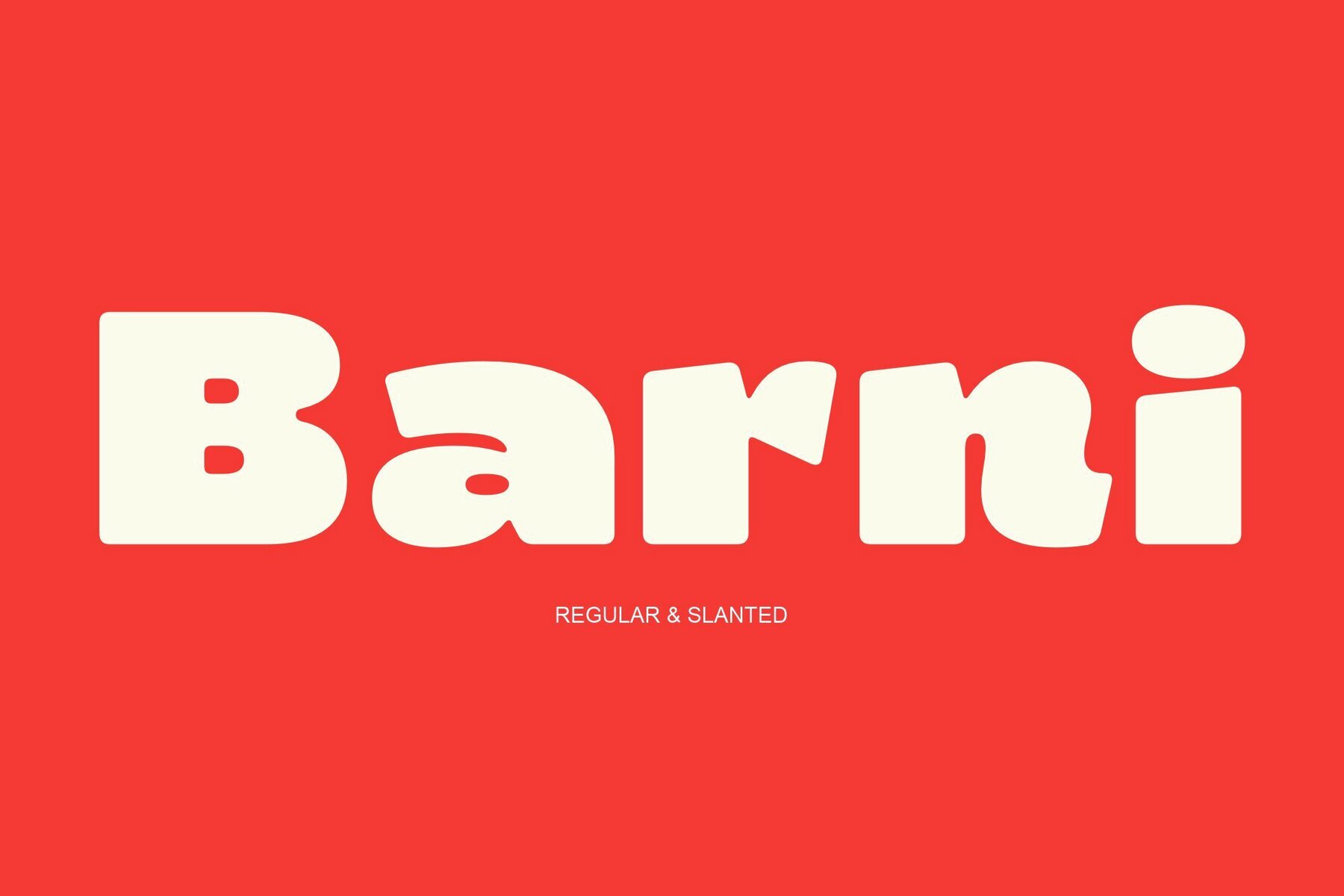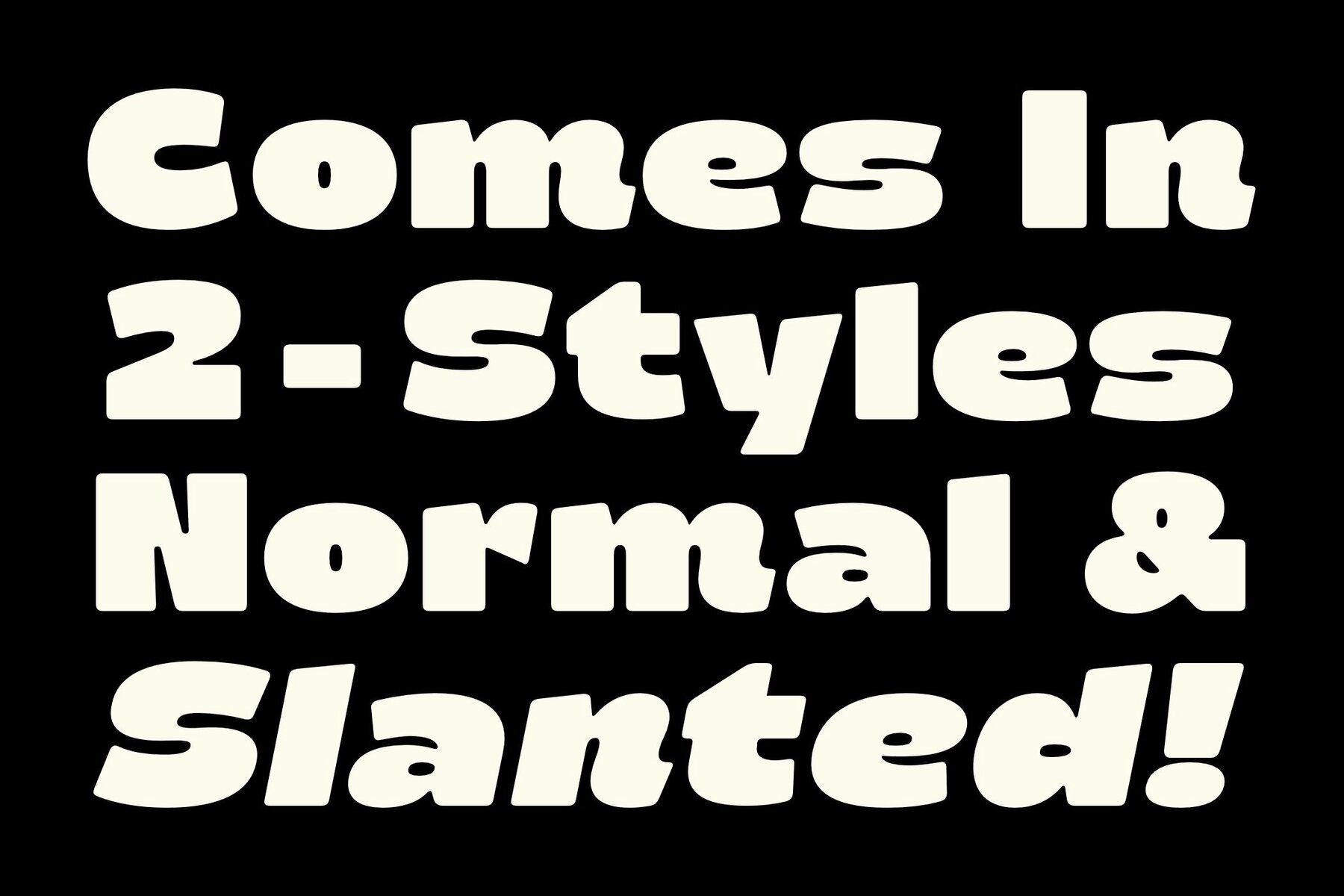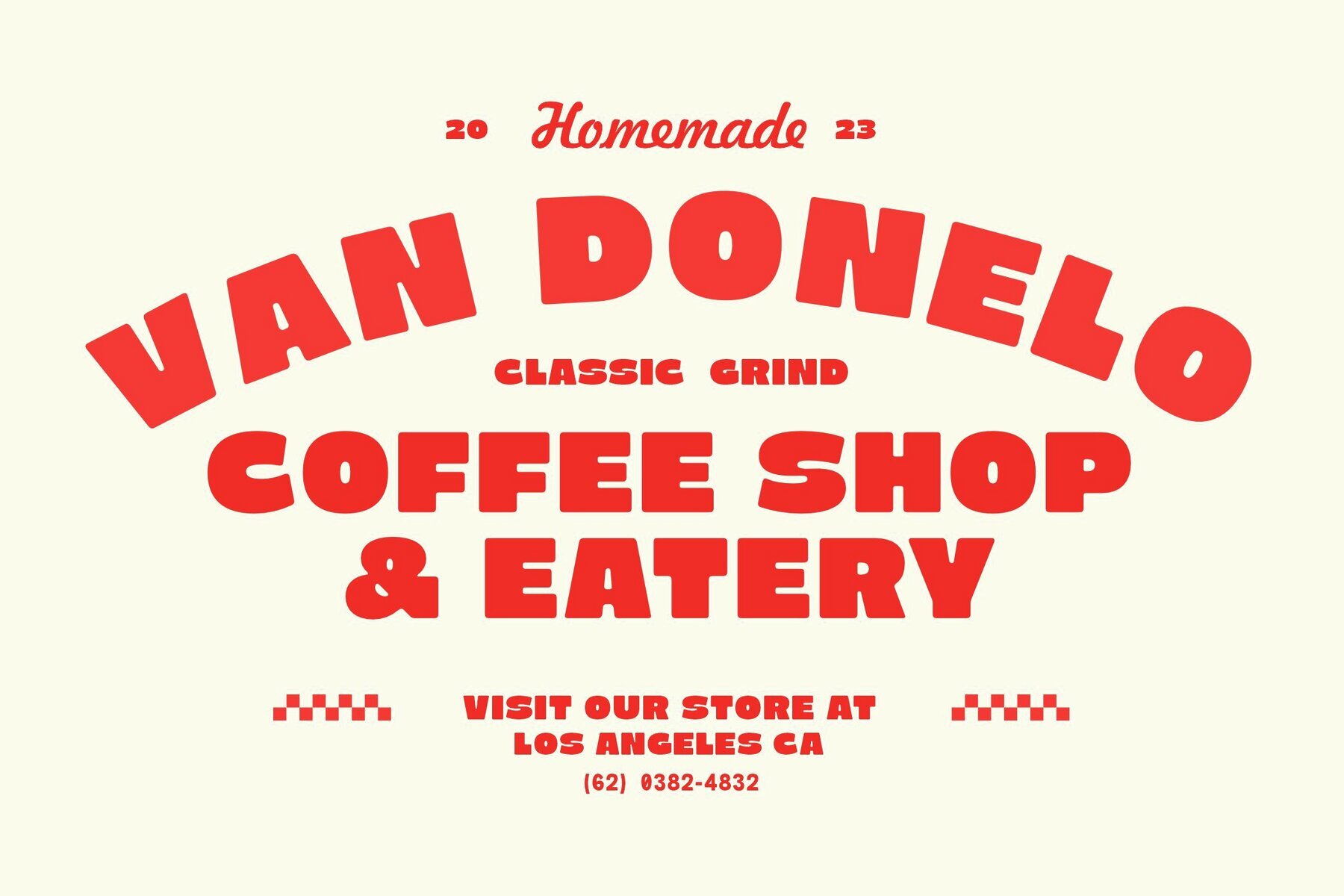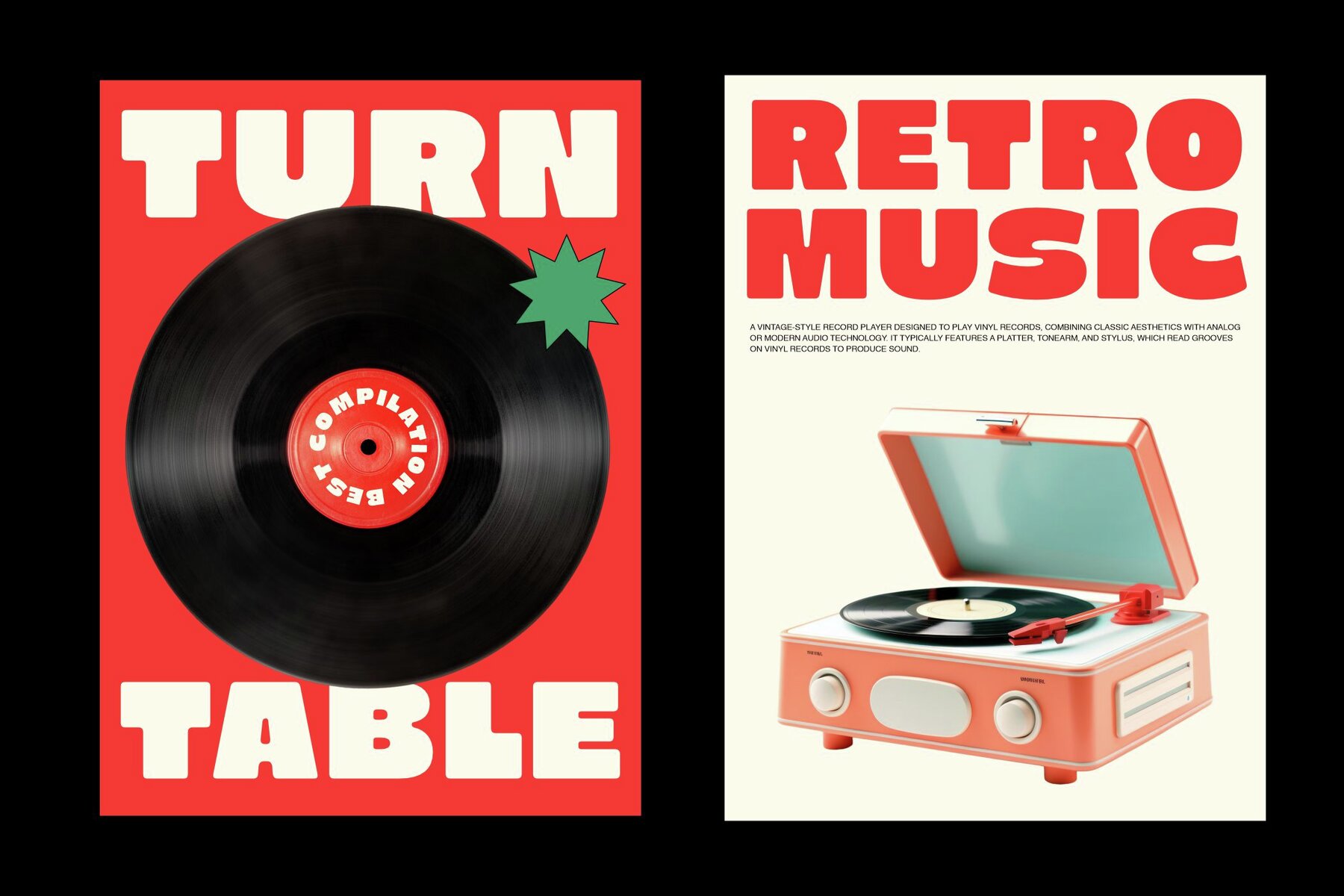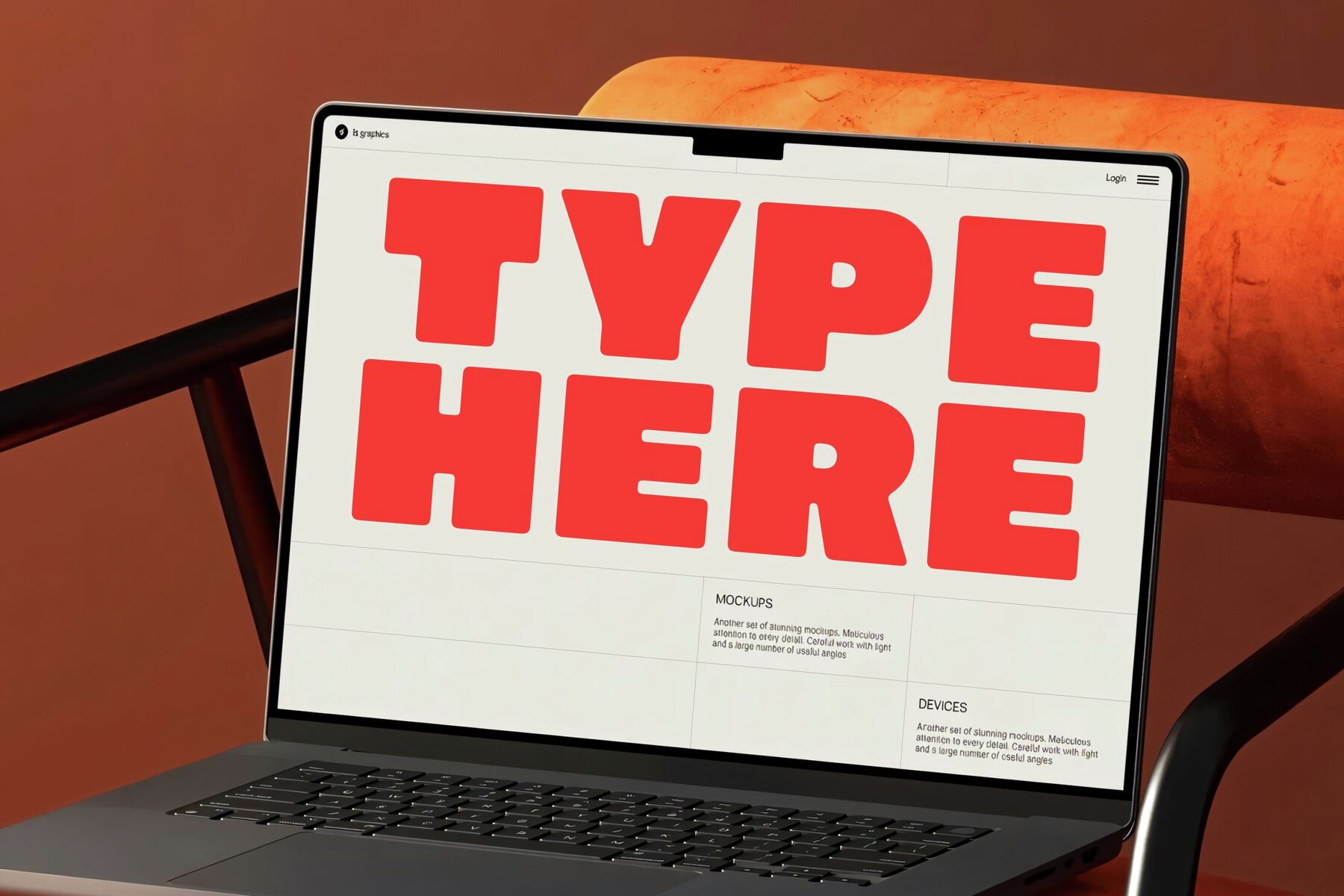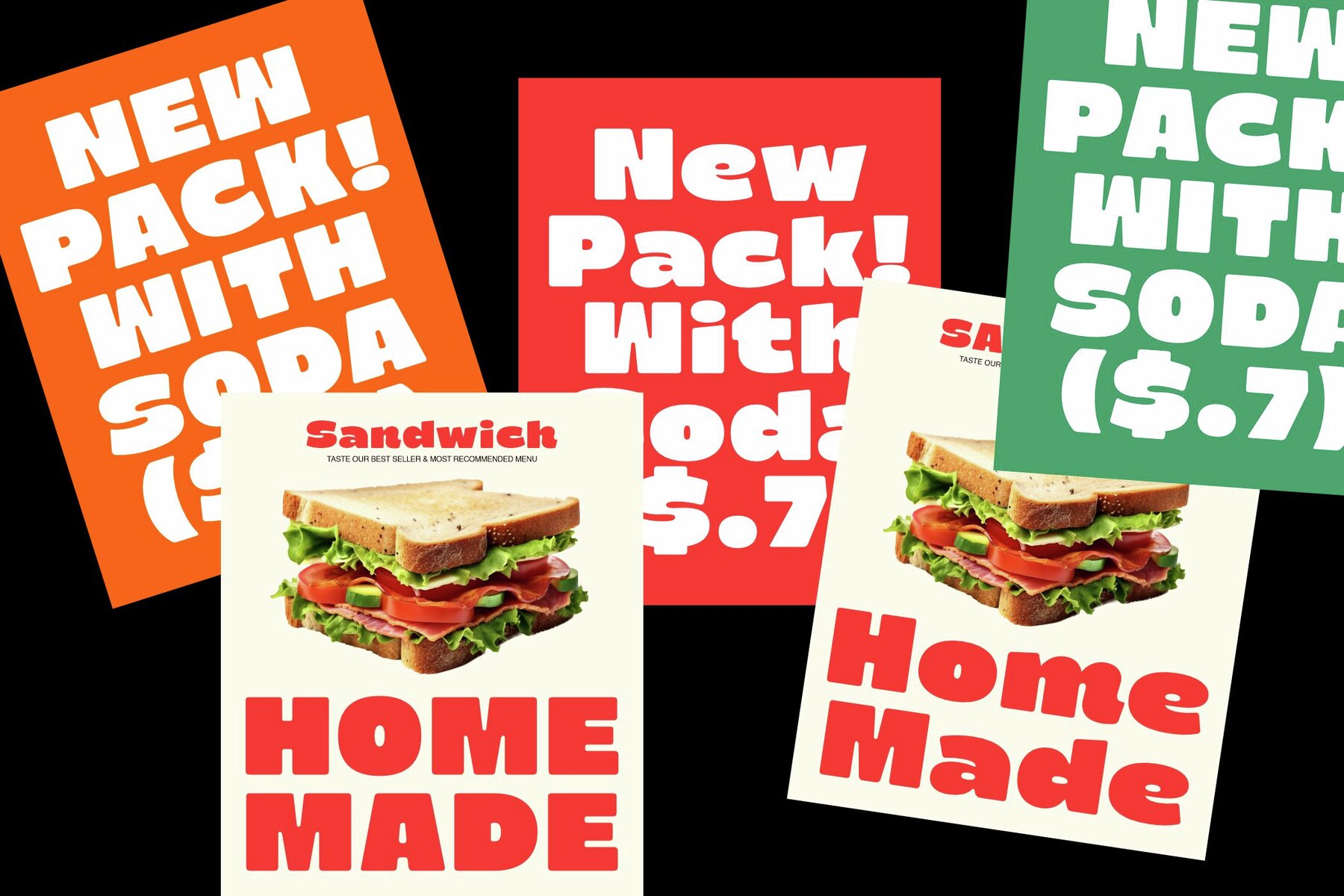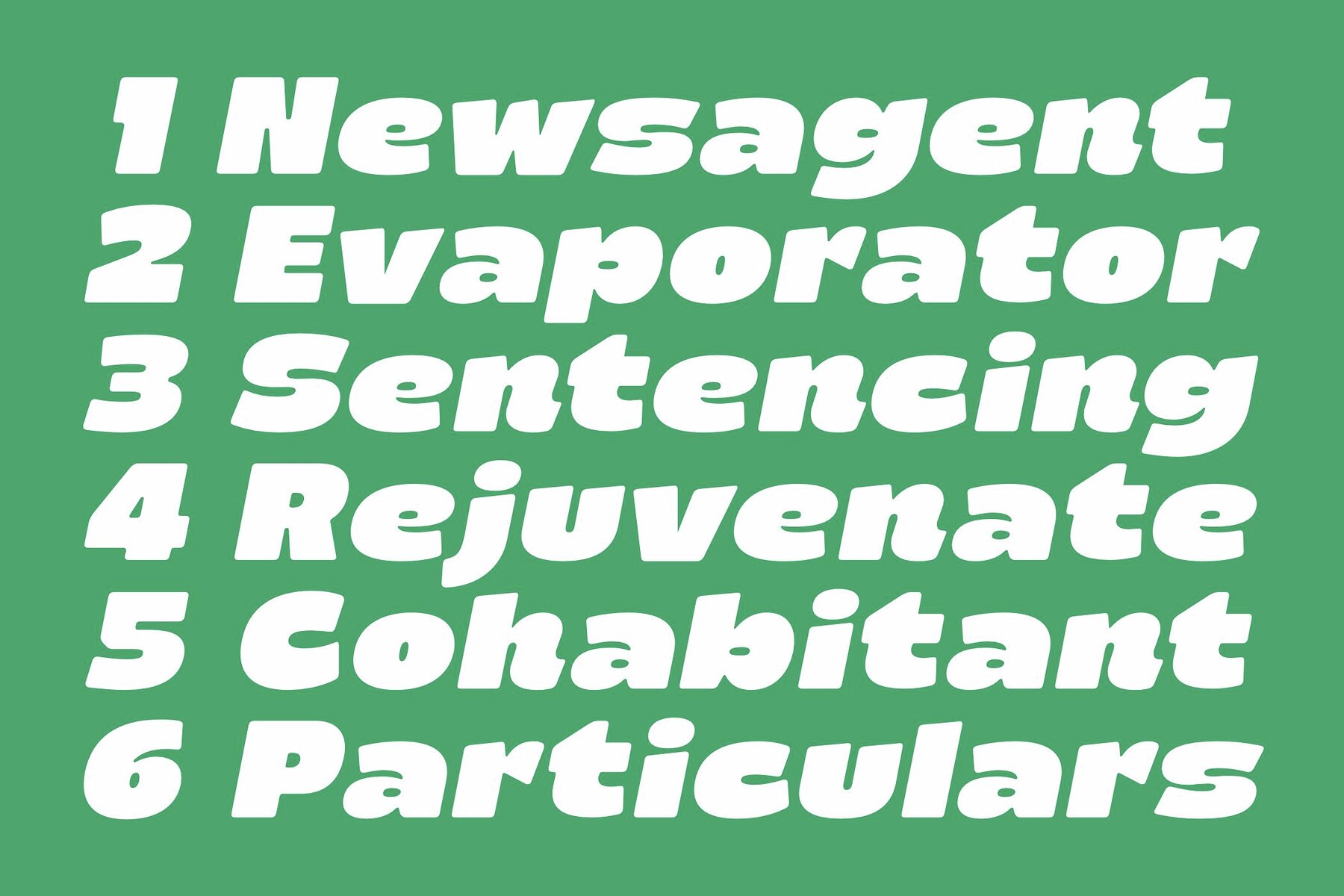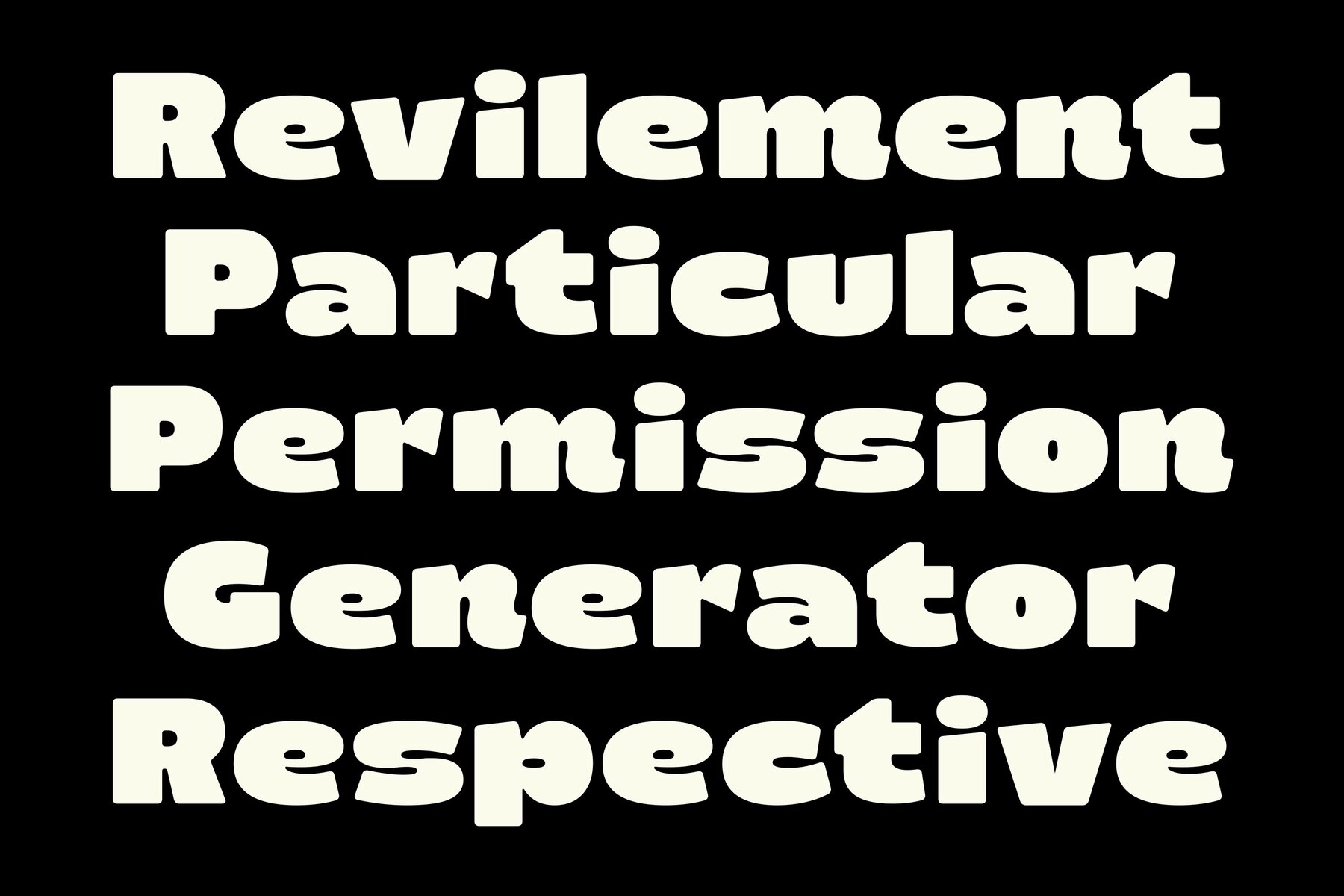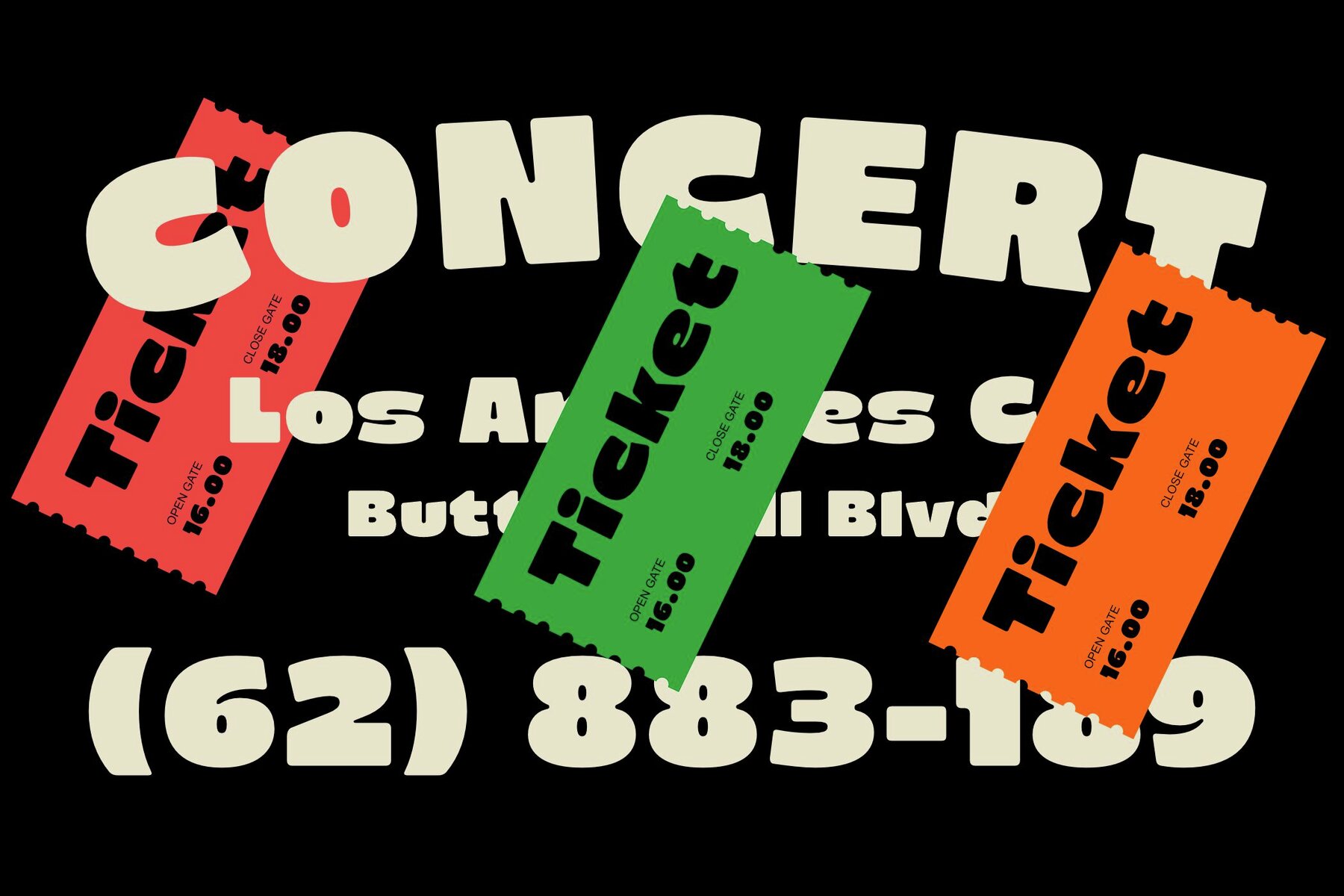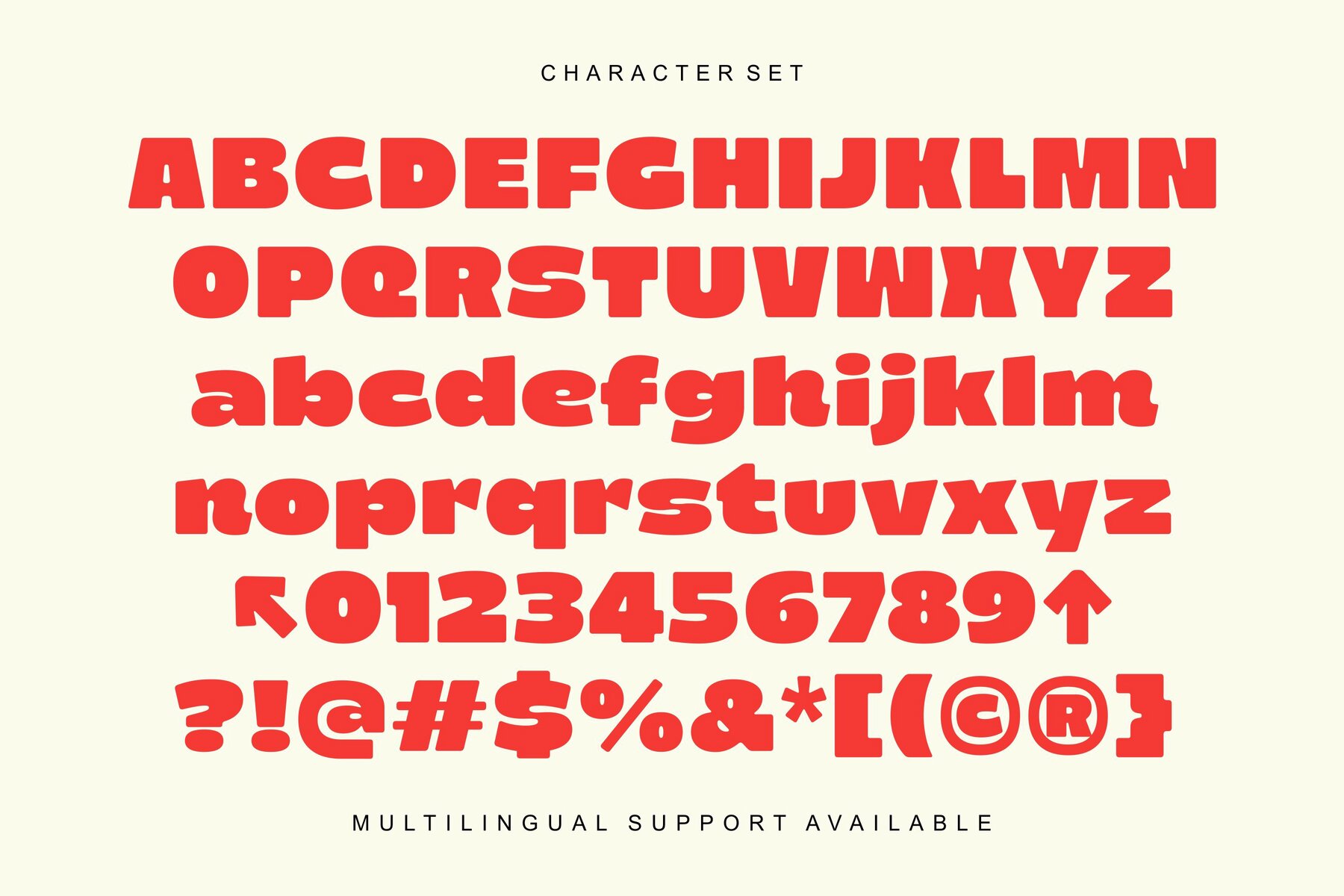
Barni Font
Barni Regular
Barni Slant
Capture the vibrant essence of 70s pop culture with Barni, a bold and bubbly retro display font that adds a nostalgic flair to any project. Designed with chunky curves and playful proportions, it infuses a joyful energy into logos, posters, and packaging. Barni is versatile, perfectly suited for a range of applications, including coffee shop branding, t-shirts, and social media visuals. Its two available styles, Regular and Slanted, cater to both vintage and modern aesthetics, offering a friendly, confident, and eye-catching vibe. Features:Barni: Bold and Groovy Retro Display Font
This font is an excellent choice for designers aiming to evoke a retro, groovy atmosphere in their work, be it café menus, retro product packaging, or creative projects that stand out.